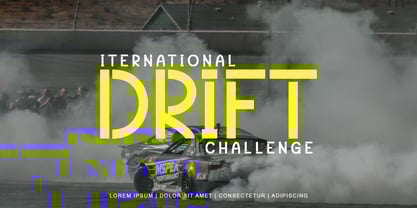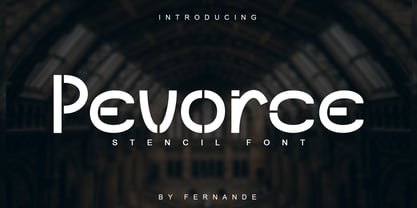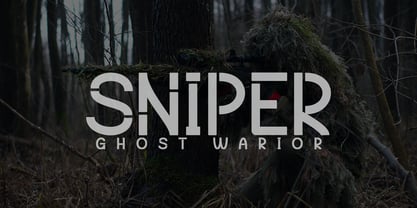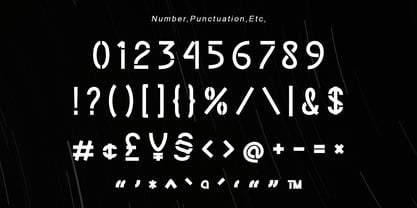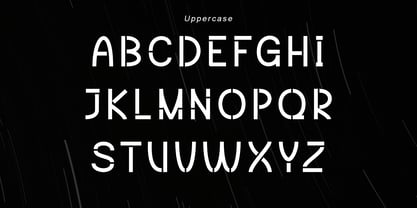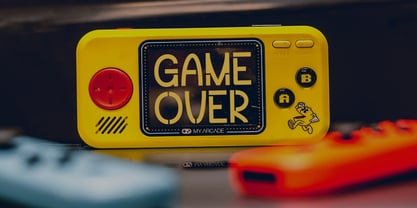
Pevorce
by Fernande
The Pevorce Font Family was designed by Angga Fernandi and published by Fernande. Pevorce contains 1 styles.
Assert your design aesthetic boldly with Pevorce, the modern stencil font of the future. Built on a foundation of geometric shapes, this font is a masterclass in the interplay of solidity and void, each letter meticulously carved with signature cutouts for a look that’s unapologetically strong and striking. Perfect for projects that demand a distinct and fearless typeface be it electrifying posters, memorable branding, or avant-garde editorial design. Despite its daring demeanor, Pevorce maintains a harmonious balance of negative space, lending it a captivating elegance that’s undeniably contemporary. An audacious yet refined choice for the creative spirit looking to make their mark.
"Fernande is a type foundry run by Angga Fernandi, specializing in the creation of elegant and lively handwritten typefaces with great precision. With a passion for experimenting with letterforms, it creates unique and expressive fonts. Committed to quality and innovation, it strives to provide distinctive typography that enriches visual storytelling and design aesthetics."